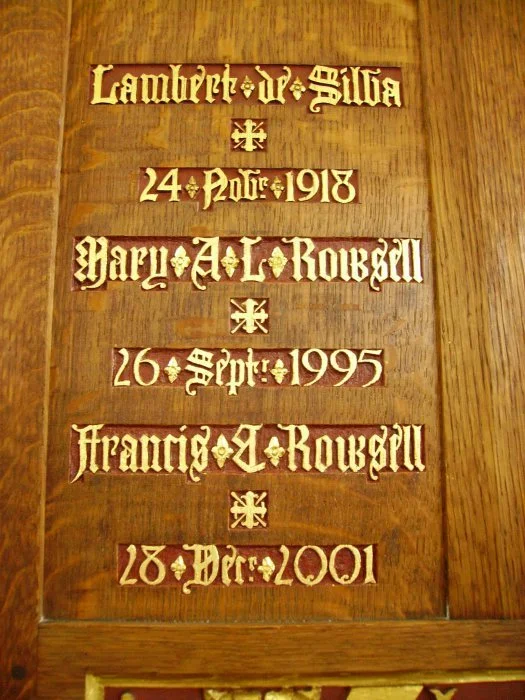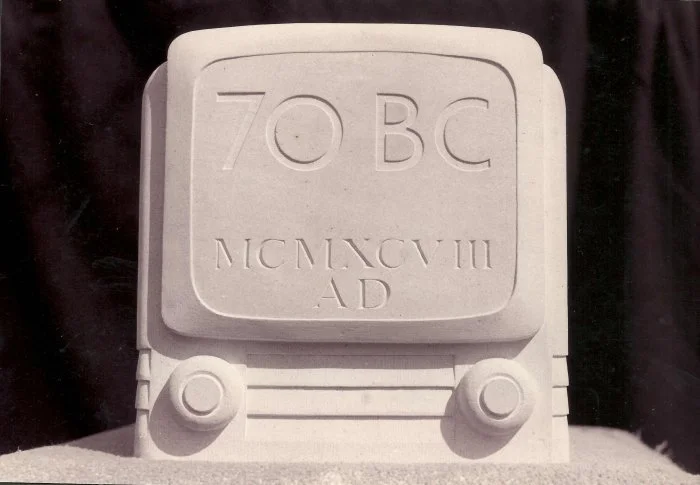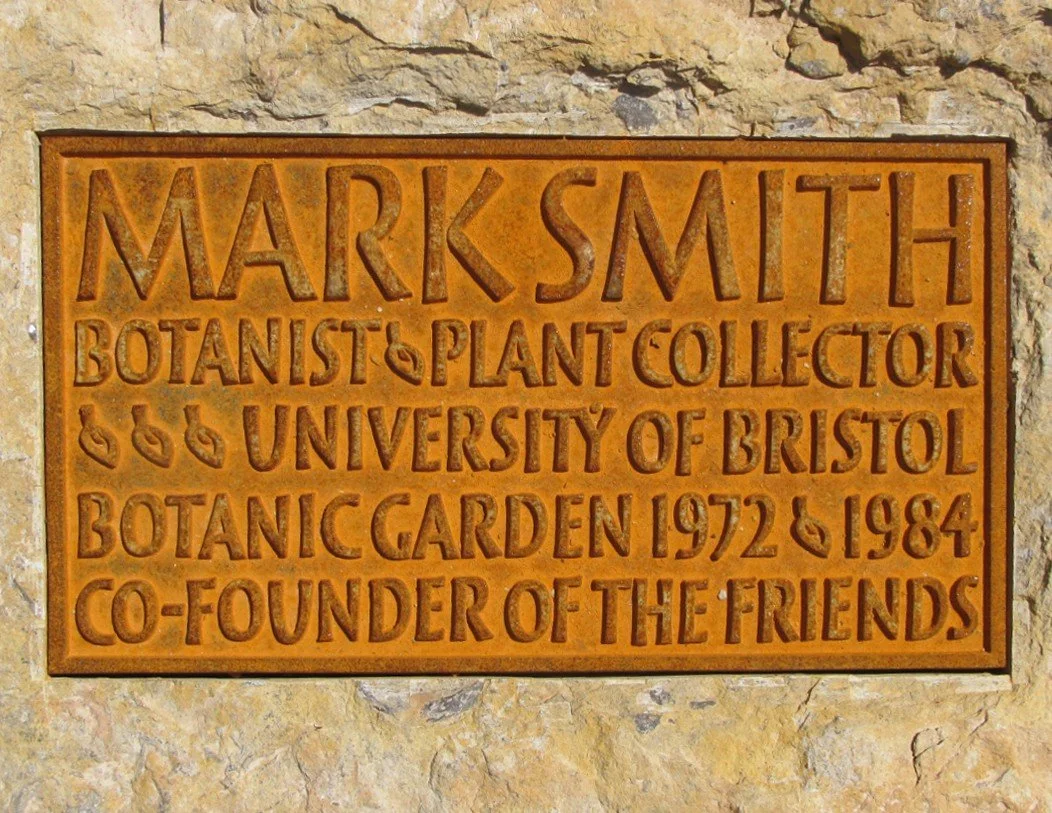
Plaques - Commemorating and celebrating work life in three different materials.
CAST IRON
Andrew Whittle: This is attached to a boulder in the University of Bristol Botanic Garden. Mark Smith was a professor there and they were very keen to use the boulder which was totally unsuitable for lettering, hence the attached cast iron plaque. The leaf has several layers of meaning here: it is appropriate for his work, I am also using it as the hedera was originally used i.e. as a word separator, but also a line filler (shades of printed work) and this leaf version — not really an ivy (hedera) leaf is my signature.
WOOD
Anna Louise Parker: This panel forms part of a whole wall of oak panelling in the Church of the Holy Spirit in Clapham. Carved into the panels are memorials to significant members of the church. I think the oldest dedication I noticed was 1914. I tried to be true to the design of the oldest ones. I carved five dedications in total, and really enjoyed the job.
STONE
Alyosha Moeran: This piece was one of my earliest commissions and was carved in purbeck limestone. It was a present for Bill Cotton who worked as a producer for the BBC, he had recently retired and was celebrating his 70th birthday. The carving is based an old “Bush” television set, and is actually carved as a three dimensional piece rather than as a plaque…but narrow enough to sit on a deep mantle shelf.